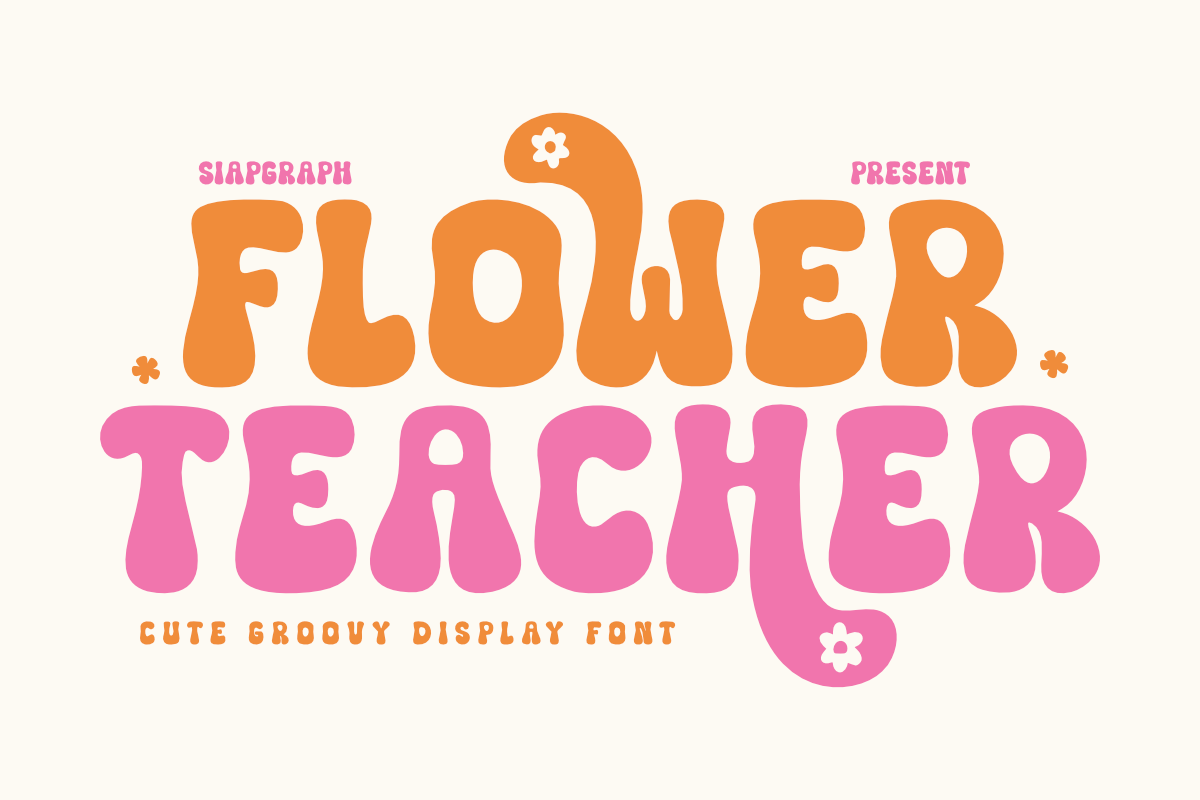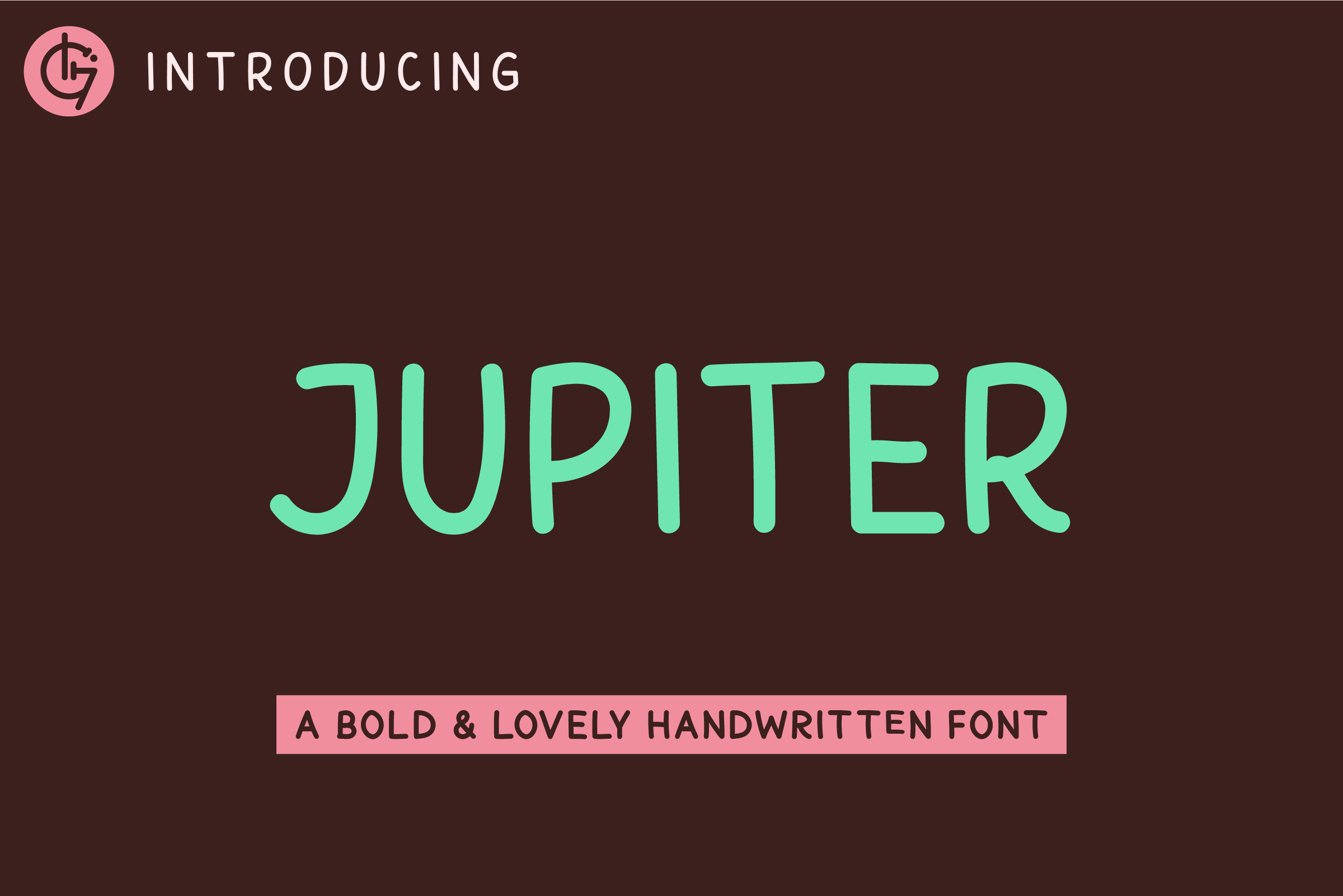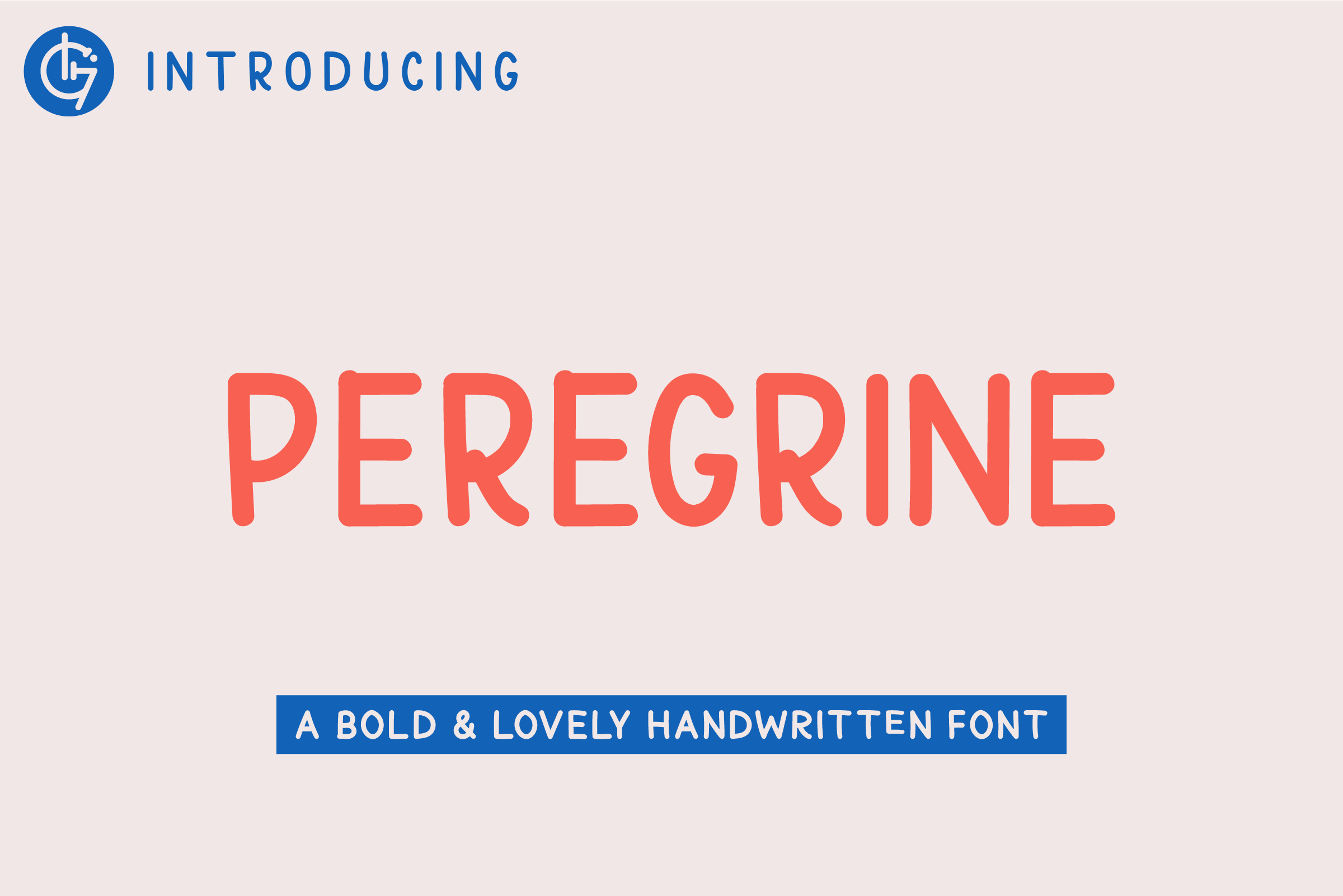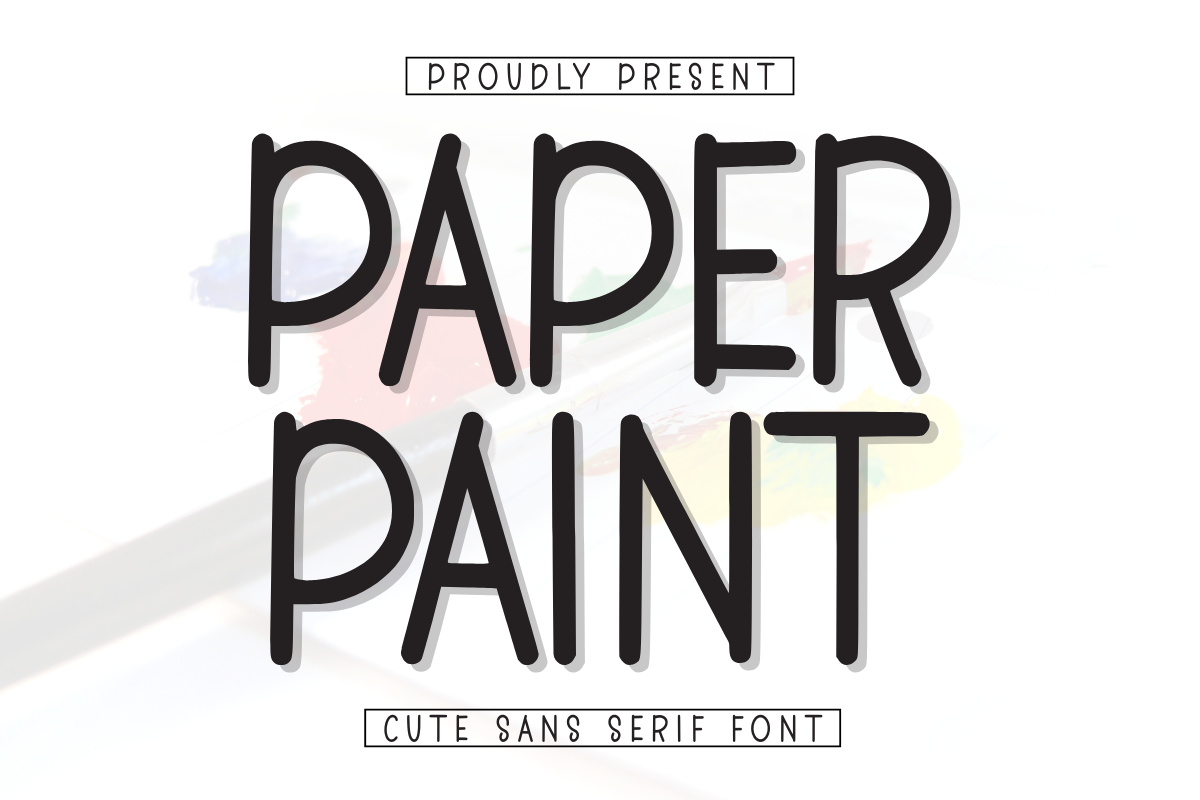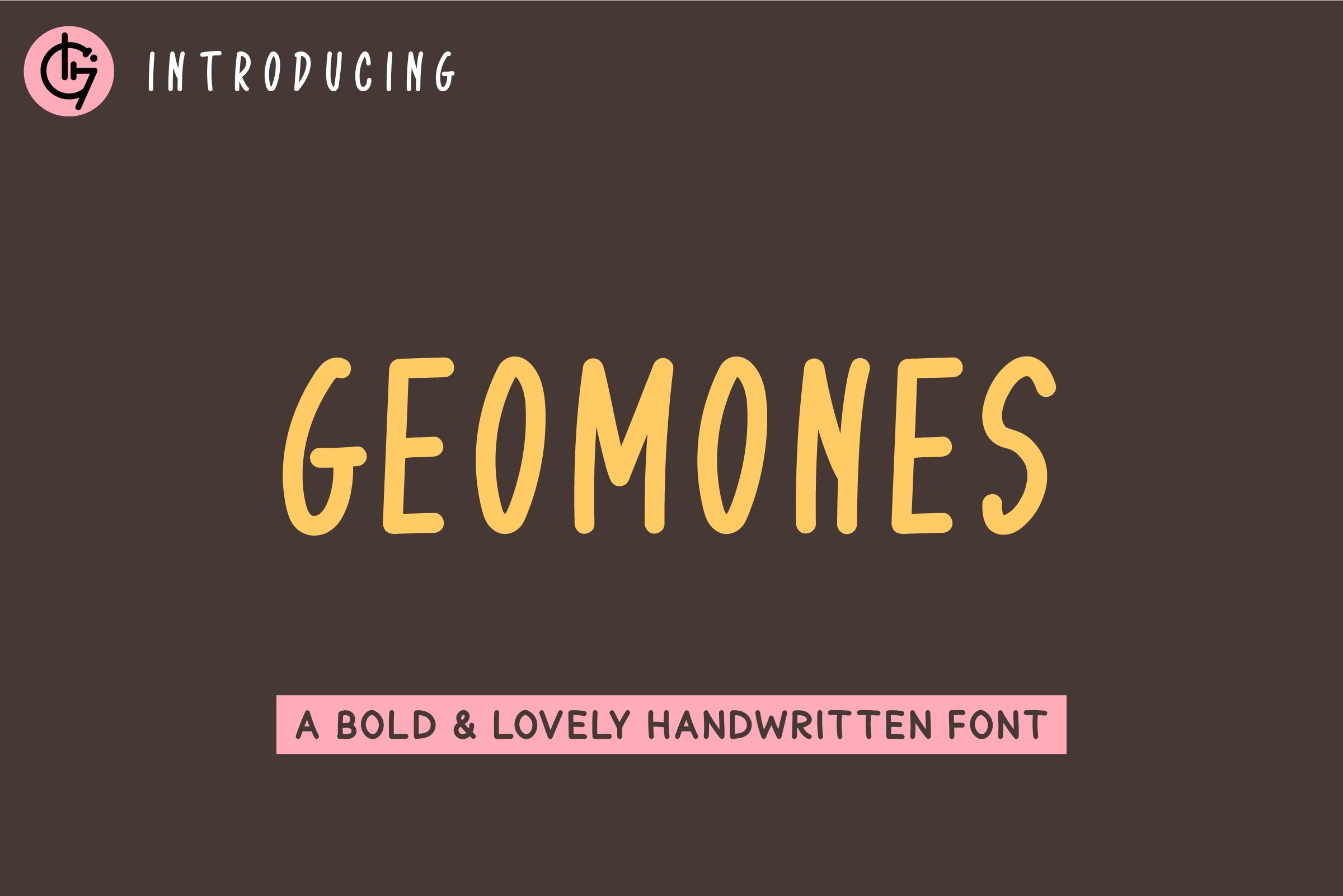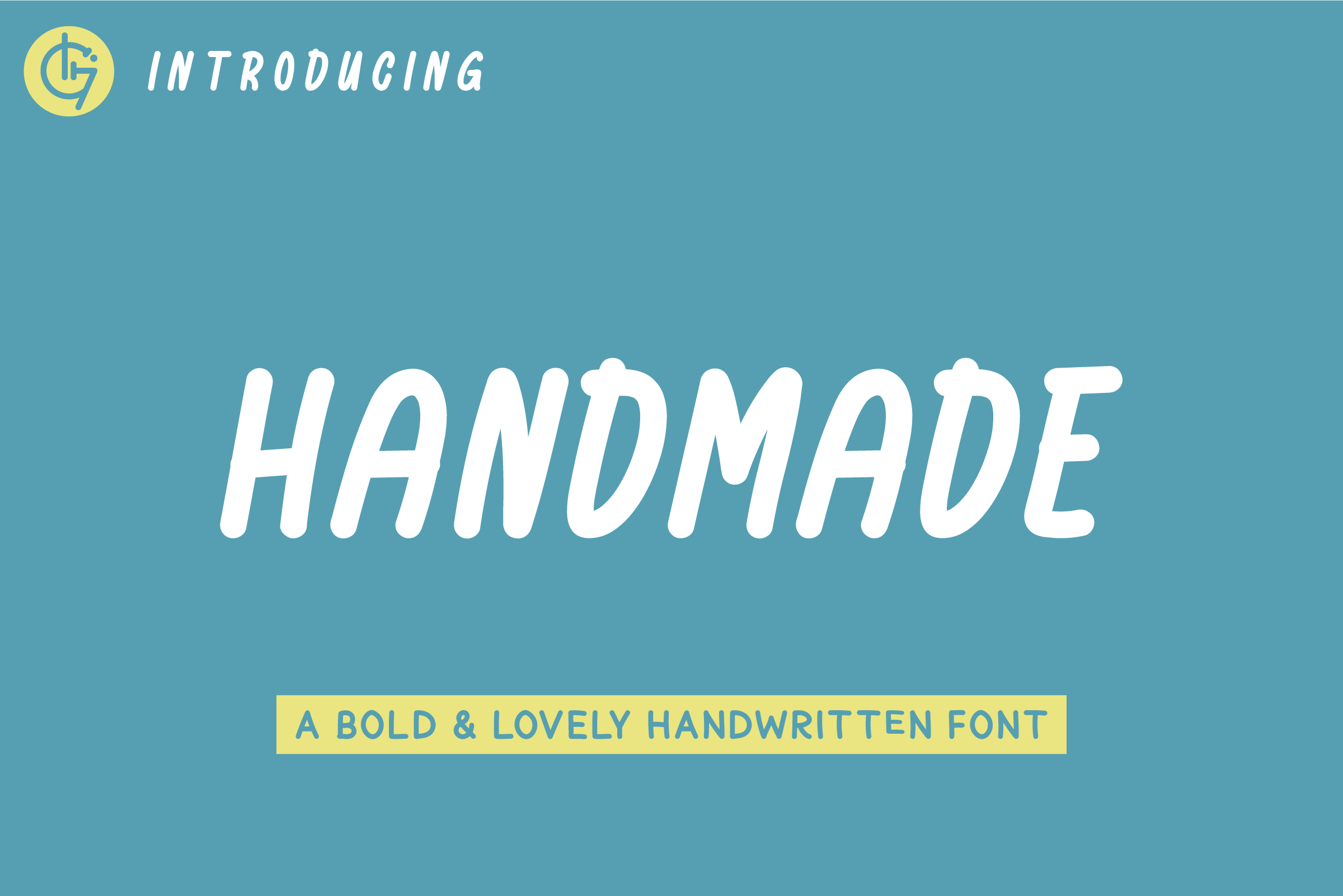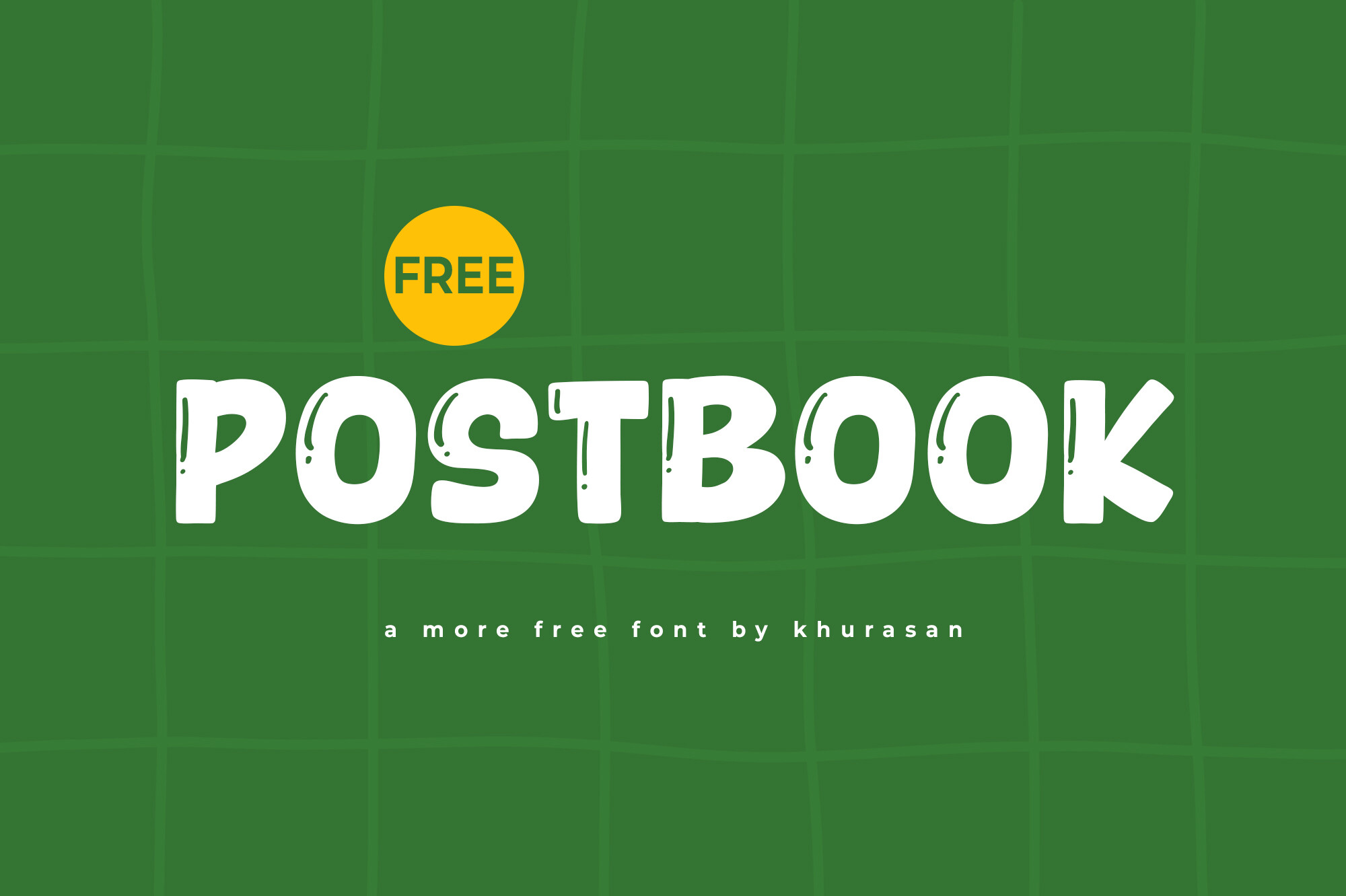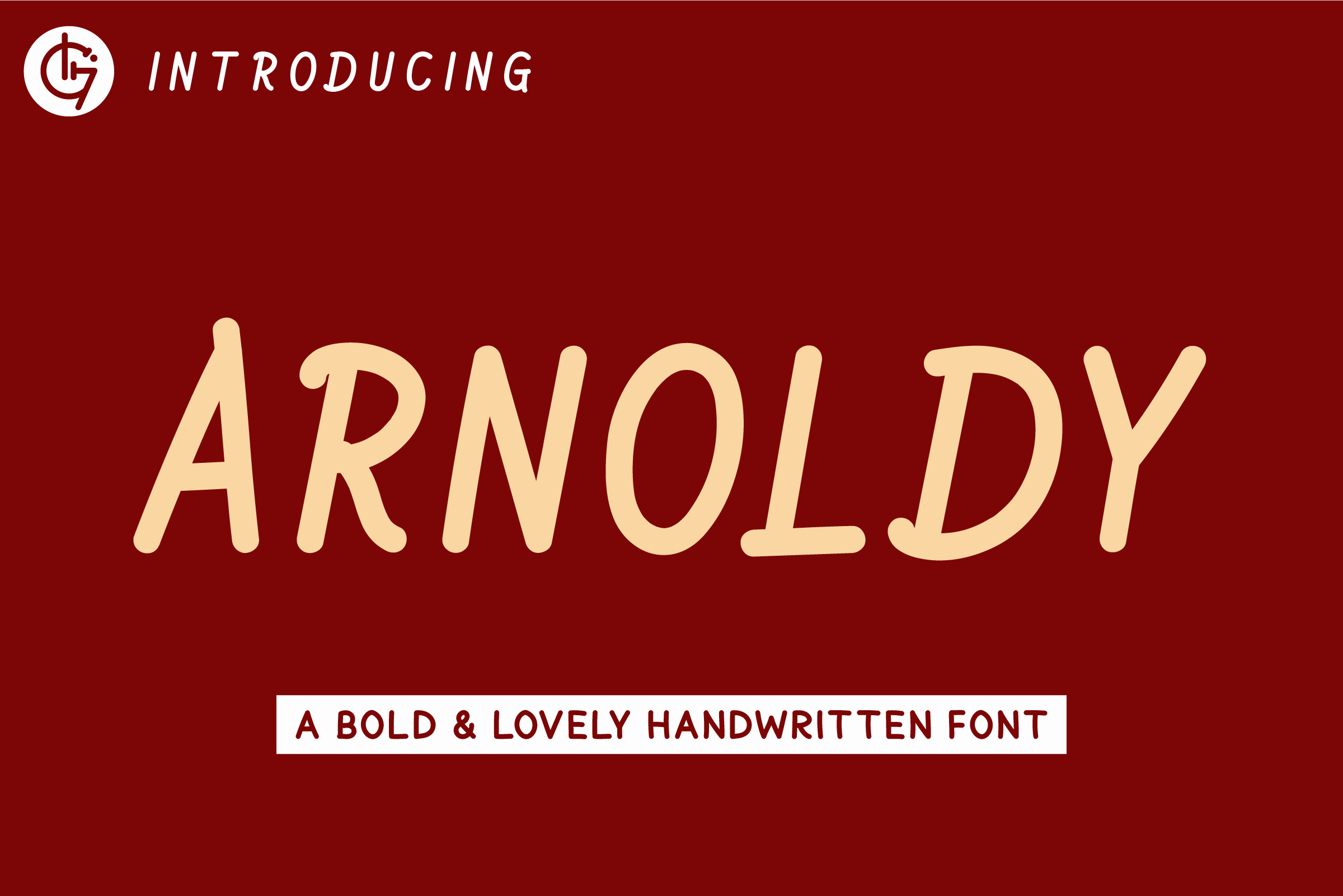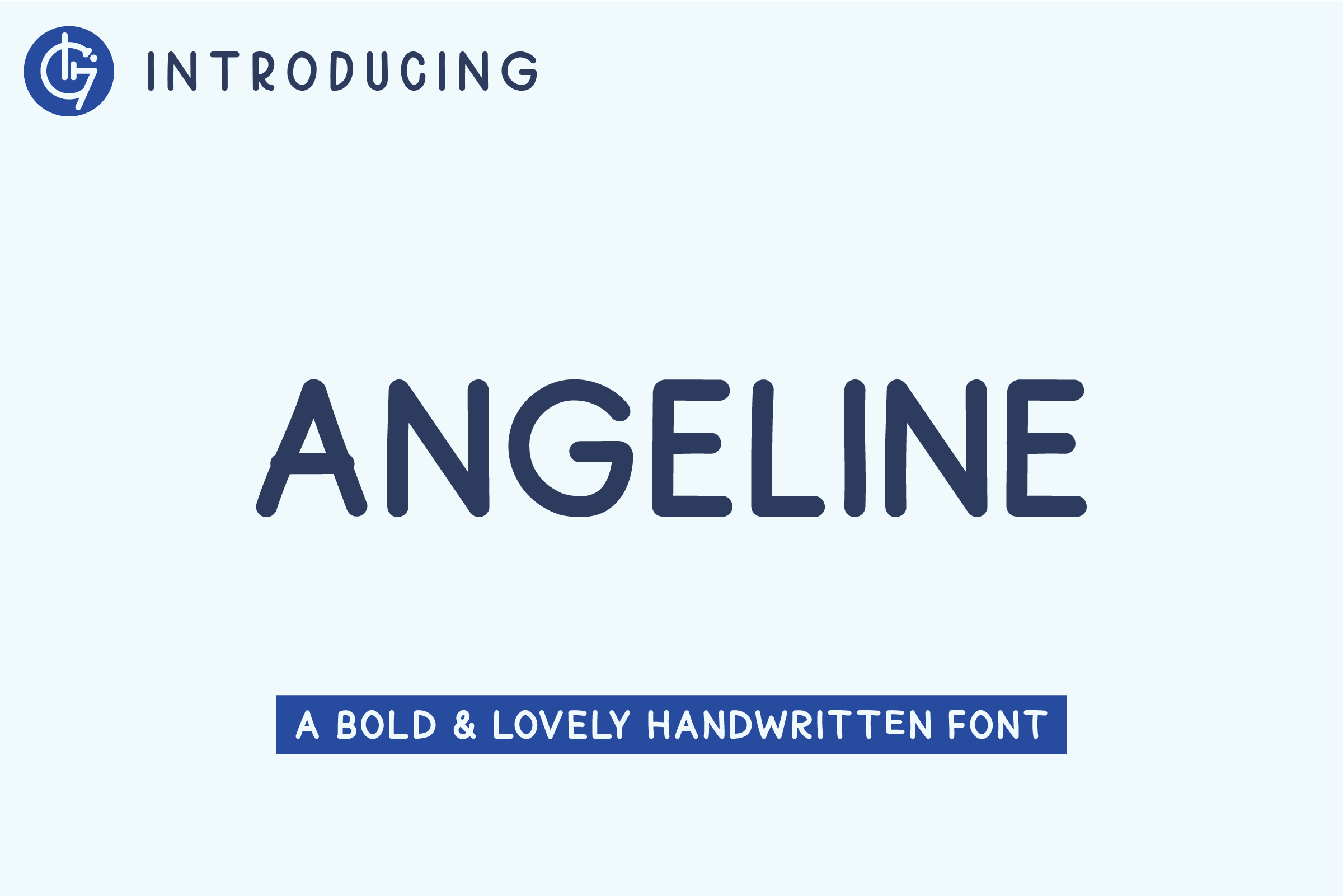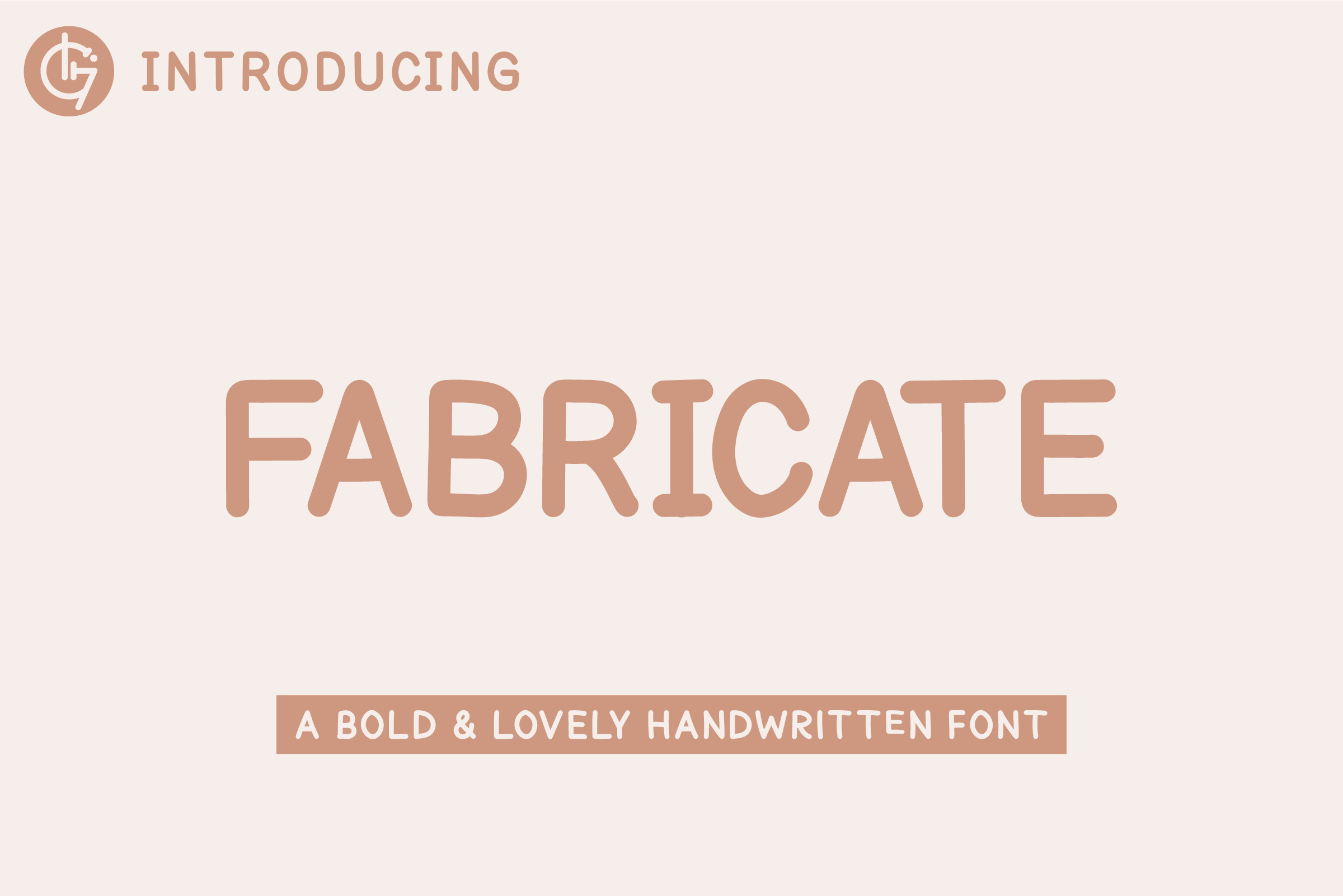
Welcome to our latest collection of free fonts available for commercial use! This week, we present a variety of unique and stylish fonts that can enhance your creative projects. From the playful charm of Flower Teacher to the bold elegance of Arnoldy, each font has been selected for its versatility and appeal. Whether you're crafting logos, greeting cards, or enhancing social media posts, these fonts are designed to captivate your audience. Dive in and explore the potential of these fonts to elevate your designs and make a lasting impression!
Flower Teacher
Flower Teacher is a vibrant and whimsical font that captures the essence of retro charm. With its bold strokes and playful curves, it creates an inviting atmosphere perfect for crafting projects, sublimation, and branding. Whether you're designing logos, greeting cards, or merchandise, this font adds a unique touch that stands out. Available in OTF and TTF formats, it features PUA encoding for easy character access, making it a versatile choice for DIY projects and KDP interiors. Let Flower Teacher inspire your creativity and bring a nostalgic flair to your designs.
Jupiter
Jupiter is a captivating handwritten font that merges boldness with a personal touch. Its strong presence makes it an ideal choice for branding, packaging, and social media, adding warmth and authenticity to your projects. With Jupiter, you can effortlessly create designs that resonate with your audience while maintaining a professional look. This font is perfect for both print and digital applications, ensuring versatility across various platforms. Whether you're crafting promotional materials or enhancing your online presence, Jupiter's unique style will help your designs leave a lasting impression.
Peregrine
Peregrine is a striking handwritten font that beautifully blends boldness with a personal flair. Its unique design is perfect for branding, packaging, and social media applications, infusing warmth and authenticity into any project. This font not only stands out but also creates a professional yet friendly aesthetic. Use Peregrine to elevate your print materials or digital content, ensuring your designs resonate with your audience. Its versatile style makes it a great choice for various creative endeavors, allowing you to make a lasting impact.
Paper Paint
Paper Paint is a delightful sans serif font crafted for crafters and creative entrepreneurs. Its charming design makes it an excellent choice for T-shirts, stickers, planners, and invitations. Being Cricut-friendly and available in OTF/TTF formats, it streamlines the design process for your projects. The PUA encoding ensures easy access to all characters, allowing you to unleash your creativity effortlessly. Whether you're working on KDP interiors or personalizing gifts, Paper Paint adds a fun and aesthetic touch to your designs, making them truly stand out.
Geomones
Geomones is an expressive handwritten font that masterfully combines boldness with a personal touch. Its design is perfect for a wide range of applications, including branding, packaging, and social media. Geomones adds a unique warmth and authenticity to your projects, making it ideal for both print and digital formats. This versatile font allows you to create professional yet approachable designs that resonate with your audience. Let Geomones elevate your creative endeavors and stand out in a crowded space, ensuring your message is communicated effectively.
Handmade
Handmade is a stunning handwritten font that combines a bold character with a charming, personal flair. Ideal for a variety of applications such as branding, packaging, and social media, it infuses warmth and authenticity into all your projects. This font is perfect for creating professional designs that still feel approachable and friendly. Use Handmade to elevate your print materials or digital content, making sure your designs have that unique touch that resonates with your audience. Its versatility ensures it can adapt to various creative endeavors effortlessly.
Postbook
Postbook is a modern and playful display font that excels in creating eye-catching posters, logos, and magazine covers. Its charming design adds a delightful touch to various projects, making it perfect for banners and promotional materials. This font is versatile, easily adapting to a wide range of creative ideas and styles. Postbook's unique character ensures that your designs stand out from the crowd, capturing attention and leaving a memorable impression. Whether you're working on print or digital designs, Postbook is an excellent choice for bringing your creative visions to life.
Arnoldy
Arnoldy is a captivating handwritten font that seamlessly merges boldness with a charming, personal touch. Perfect for branding, packaging, and social media, it brings warmth and authenticity to your designs. This font is ideal for creating professional materials that still maintain an approachable feel. Use Arnoldy to elevate your print and digital projects, making sure your designs stand out and resonate with your audience. Its versatile style allows for a wide range of applications, ensuring it can adapt to any creative endeavor you embark on.
Angeline
Angeline is a delightful handwritten font that exudes a strong presence while maintaining a charming, personal touch. It's perfect for applications such as branding, packaging, and social media, adding a warm and authentic feel to your designs. This font allows you to create professional materials that resonate with your audience and feel inviting. Use Angeline to enhance your print or digital projects, ensuring your designs stand out and leave a lasting impression. Its versatility makes it an excellent choice for various creative endeavors.